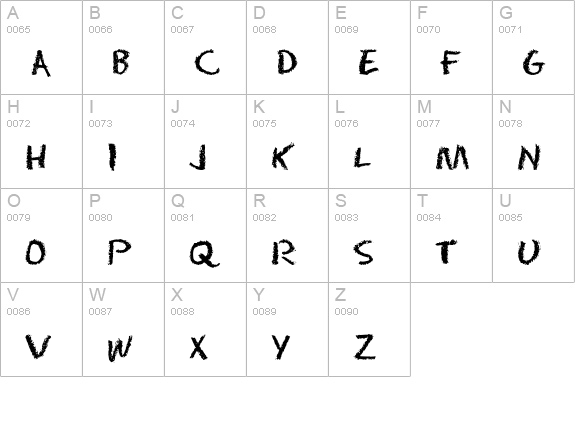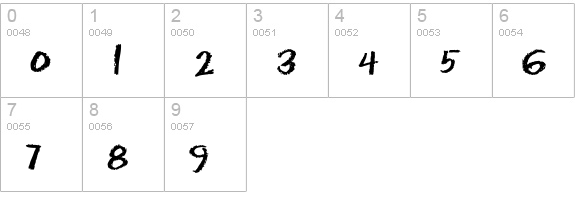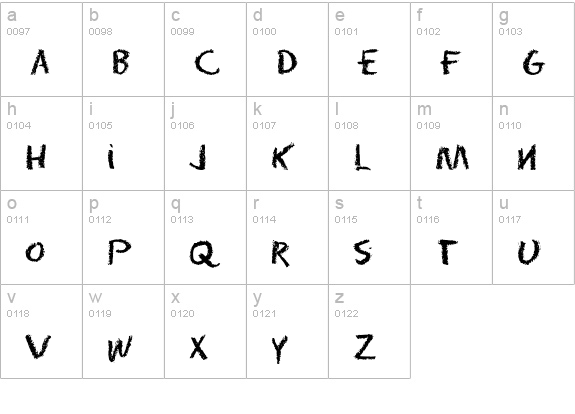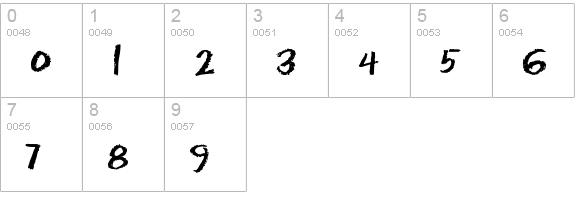
Eraser Dust Font Details
Eraser Dust font is a whimsical and playful typeface that adds a touch of nostalgia and creativity to any design project. Inspired by the imperfect lines and textures of eraser dust left behind on a page, this font is perfect for adding a hand-drawn feel to your designs. With its irregular and slightly messy appearance, Eraser Dust font captures the essence of doodling and sketching with a pencil. It brings a sense of warmth and authenticity to any text, making it ideal for projects that require a personal and unique touch. Whether you are working on invitations, greeting cards, posters, or social media graphics, Eraser Dust font will add a touch of charm and creativity to your designs. It is versatile enough to be used for both headlines and body text, giving you countless possibilities to explore. Best of all, Eraser Dust font is free! It is available for download at FontsMarket.com, a trusted source for high-quality fonts. You can easily add this font to your collection and start using it in your projects right away. Its freely available nature makes it accessible to designers of all levels, from beginners to professionals. So why wait? Give your designs a playful and hand-drawn look with Eraser Dust font. Download it for free at FontsMarket.com and let your creativity flow!